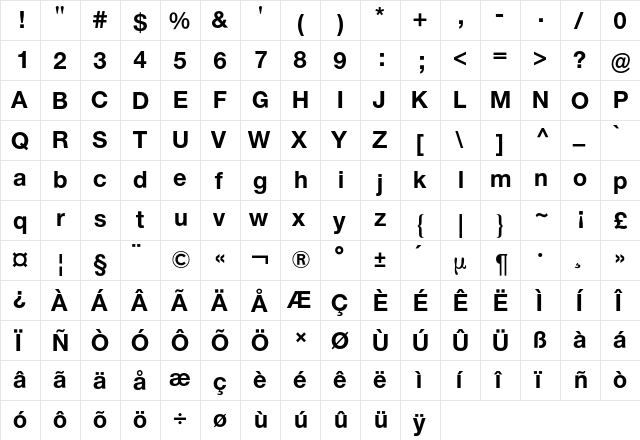
Neue Helvetica BQ Regular
Design Context for Neue Helvetica BQ Typeface
Neue Helvetica BQ offers clean, dependable letterforms without strong stylistic allegiance, making it a practical choice for designers who need flexibility.
Pro Tip: Use Neue Helvetica BQ in both headline and body roles to test its range before committing to a single application.